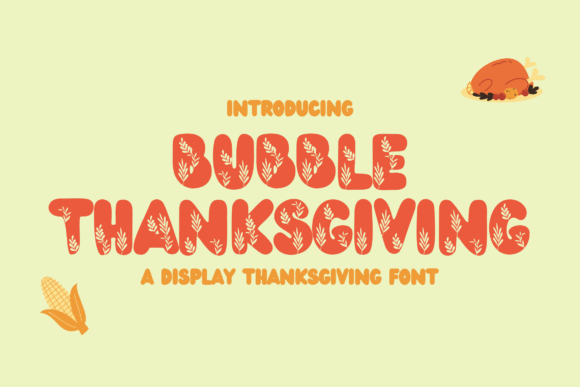
Introducing the Bubble Thanksgiving Font: A Cheerful Celebration of Joy and Festivity
Ah, Thanksgiving – a time for warmth, gratitude, and creativity! As designers, crafters, and creative hobbyists, we know how crucial it is to find the perfect font to capture the essence of this special occasion. I still remember working on a Thanksgiving project last year, struggling to find a font that embodied the cheer and festivity of the season. That’s when I discovered the Bubble Thanksgiving Font – a delightful blend of joyous bubbles and festivity that instantly brought my design to life!
As someone who’s worked extensively with the Bubble Thanksgiving Font, I’m excited to share my honest review. Here’s what I love:
• ✨ Unique and playful design: The Bubble Thanksgiving Font boasts charming hand-drawn letters with a radiant and spirited appeal that’s hard to find elsewhere.
• ✅ Versatility: With its airy, rounded features, this font excels in serving a variety of purposes, from evoking an autumnal ambiance in seasonal designs to crafting warm-hearted messages in greeting cards and invitations.
• 🎉 Lively energy: The font brings a delightful spin to your designs, making it perfect for social media posts, posters, and other visual creations.
And here are a few quirks to consider:
• 🤔 Legibility at smaller sizes: While the font is stunning at larger sizes, it may lose some legibility when used at smaller sizes (below 20pt). Be sure to test it in your design before finalizing.
• ⚠️ Limited use in formal designs: Due to its playful nature, the Bubble Thanksgiving Font might not be the best fit for formal designs or projects requiring a more professional tone.
The Designer Inspiration Behind the Bubble Thanksgiving Font
The Bubble Thanksgiving Font was created by a talented designer who wanted to capture the essence of Thanksgiving in a unique and playful way. Inspired by the joy and festivity of the season, the designer crafted a font that’s both cheerful and inviting. The result is a font that embodies the warmth and gratitude of Thanksgiving, making it perfect for a wide range of creative projects.
Is the Bubble Thanksgiving Font suitable for digital and print designs? Yes, the Bubble Thanksgiving Font is versatile and can be used in both digital and print designs.